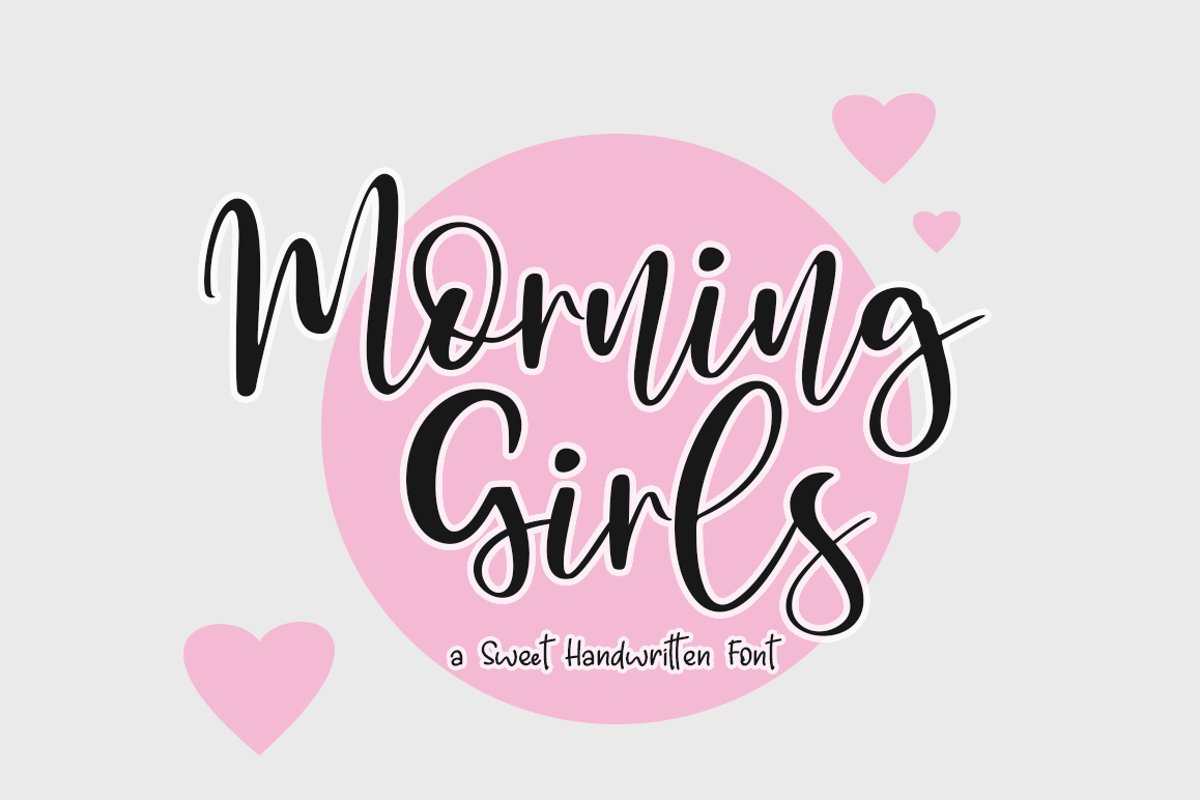
Morning Girls Handwritten Script Font
Morning Girls
Morning Girls Bouncy Handwritten Font
Introducing the bouncy handwritten "Morning Girls" Script Font! If you are needing a touch of casual modern calligraphy for your designs, this font was created for you!